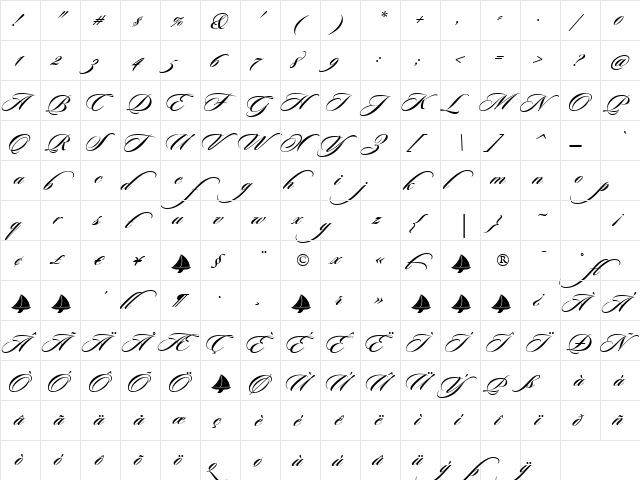
Sloop Script Three BETA Bold
Design Context for Sloop Script Three BETA Typeface
Sloop Script Three BETA brings a calligraphic fluidity to the page — its connecting strokes and expressive curves give it an unmistakably human quality. Its bold stroke weight gives it real presence on the page.
Font Pairing: Combine Sloop Script Three BETA with a simple geometric sans for maximum contrast — the tension between flowing curves and clean structure is a classic typographic pairing.
Pro Tip: Use Sloop Script Three BETA for short runs of text — names, titles, or taglines. Extended body copy in script faces tires the eye quickly.